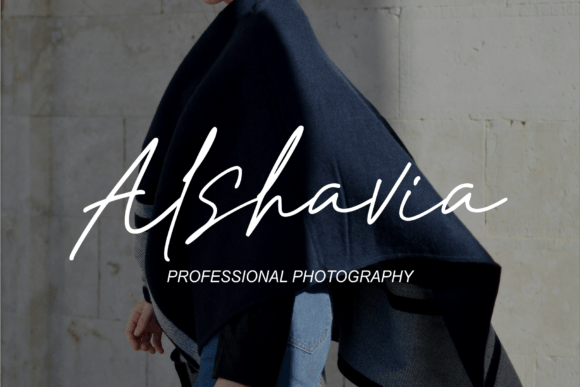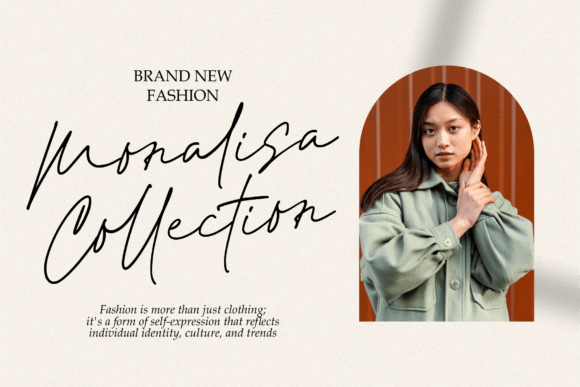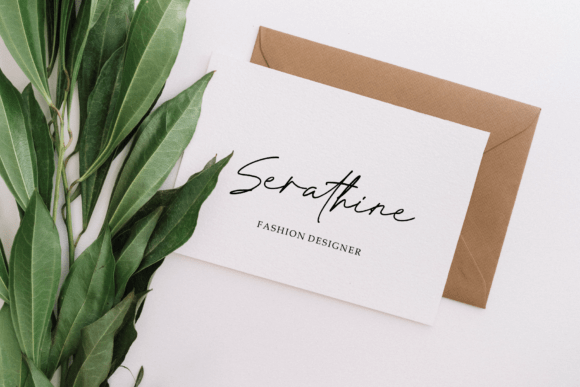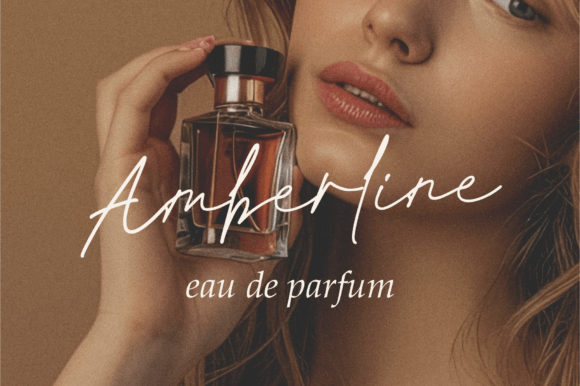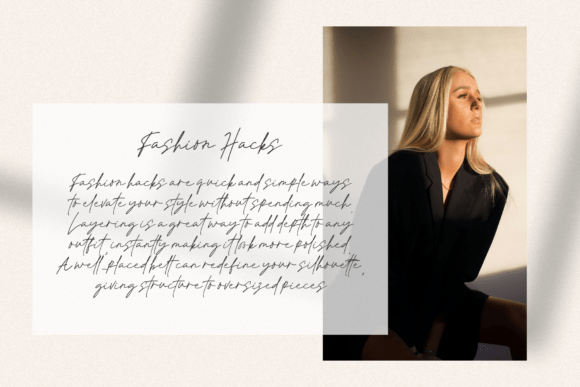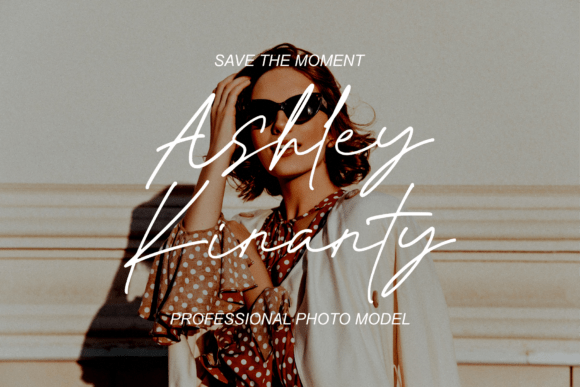
Introducing Amber Feather Font: Elevate Your Designs with Elegance and Sophistication
In the world of typography, few fonts manage to capture the essence of modern elegance and chic sophistication as effortlessly as Amber Feather. This handwritten script font is a masterpiece of design, offering a perfect blend of beauty, refinement, and versatility. Whether you’re working on wedding invitations, greeting cards, logos, branding projects, or posters, Amber Feather is the ideal choice to add a delicate yet impactful touch to your designs.
The Beauty of Amber Feather
Amber Feather’s smooth, graceful strokes are what set it apart from other script fonts. Its elegant flow and refined lines make it a joy to use in a variety of creative projects. The font’s modern charm is balanced with a timeless sophistication, ensuring that your designs will stand out with a unique and luxurious feel. With Amber Feather, you can create stunning visual content that exudes class and poise.
One of the key advantages of Amber Feather is its versatility. This font is not just limited to one or two specific uses; rather, it can be applied to a wide range of design projects. From wedding planners and stationery to logos, branding, and advertising materials, Amber Feather adapts seamlessly to any design need. Its ability to convey both elegance and modernity makes it a valuable asset for designers looking to create distinctive and memorable content.
Stylish Ligatures and Multilingual Support
Amber Feather comes with stylish ligatures that add an extra layer of sophistication to your text. Ligatures are special character combinations that replace standard character pairs, creating a more fluid and natural look. This feature is particularly useful in script fonts, as it helps maintain the flow and continuity of the text, making it more aesthetically pleasing.
In addition to its ligatures, Amber Feather also offers multilingual support. This means that the font can be used to create content in various languages, making it a fantastic choice for global brands or designers working on international projects. The ability to support multiple languages adds to the font’s versatility and usability across different cultures and regions.
Amber Feather is PUA (Private Use Area) encoded, which means that it allows easy access to special characters and glyphs. The PUA encoding ensures that users can easily insert and use the additional characters provided with the font, without needing to access them through complicated processes. This feature is particularly beneficial for designers who want to add unique touches to their work without hassle.
Why Choose Amber Feather?
So, why should you choose Amber Feather for your design projects? The answer lies in its refined, luxurious charm and its ability to bring both elegance and modernity to your work. Here are a few reasons why Amber Feather stands out:
- Elegant and Modern: Amber Feather strikes the perfect balance between elegance and modernity, making it suitable for a wide range of design projects.
- Versatile: From weddings and stationery to logos and posters, Amber Feather can be used in various design applications.
- Stylish Ligatures: The font comes with stylish ligatures that enhance the aesthetic appeal of your text.
- Multilingual Support: Design for a global audience with Amber Feather’s multilingual support.
- PUA Encoded: Enjoy easy access to special characters and glyphs, making your design process smoother.
| Author | MJB Letters |
Amber Feather Font is a stunning handwritten script font that brings a touch of beauty, modern elegance, and chic sophistication to any design project. Its smooth strokes, stylish ligatures, and multilingual support make it a versatile and valuable asset for designers and crafters. With its PUA encoding for easy access to special characters, Amber Feather is not just a font but a design solution that can elevate your creative projects to new heights of luxury and refinement. Whether you’re designing for weddings, branding, or personal projects, Amber Feather is an ideal choice for anyone looking to add a delicate yet impactful touch to their work.
Incorporate Amber Feather into your design toolkit and discover the difference it can make in creating visually stunning and memorable content. With its combination of elegance, modernity, and versatility, Amber Feather is poised to become your go-to font for projects that demand the best.